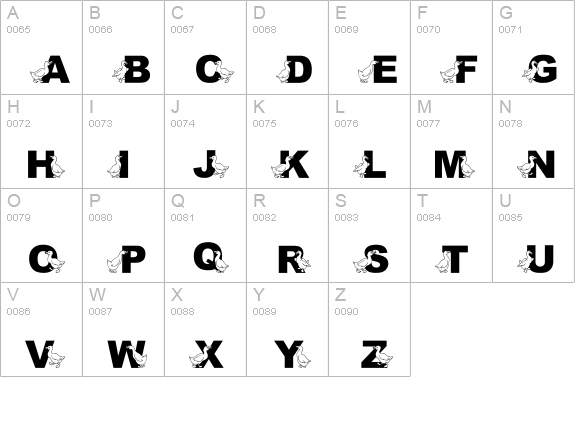
Introducing the alluring JLR Golden Goose font, a true gem among the vast sea of typography. This distinctive typeface encapsulates elegance, sophistication, and a touch of whimsy, making it the perfect choice for any design project that demands attention to detail and a hint of playfulness. With its meticulously crafted letterforms, JLR Golden Goose exudes a timeless appeal that effortlessly blends classic and contemporary aesthetics. Each character boasts a unique charm, effortlessly capturing the essence of vintage typographic styles while maintaining a modern edge. Whether used for branding, packaging, invitations, or editorial designs, this font will infuse your creations with a touch of magic, ensuring they stand out from the crowd. One of the greatest advantages of JLR Golden Goose is that it is freely available to download at FontsMarket.com. This means that designers, creators, and typography enthusiasts alike can access this remarkable font without any financial constraints. By offering it as a free resource, the creators behind JLR Golden Goose have made it accessible to a wider audience, enabling countless individuals to elevate their designs and bring their creative visions to life. The versatility of JLR Golden Goose knows no bounds. It effortlessly adapts to various design styles, from vintage to modern, minimalistic to ornate. Its exquisite ligatures, alternates, and swashes add an extra layer of artistic flair, allowing designers to experiment and create truly unique compositions that leave a lasting impression. JLR Golden Goose is a true treasure among fonts, a rare find that combines beauty, functionality, and accessibility. Whether you're a seasoned designer or just starting your creative journey, this font is a must-have in your toolkit. So why wait? Head over to FontsMarket.com and indulge in the beauty of JLR Golden Goose today. Embrace the freedom to create and elevate your designs with this remarkable font that is freely available for download.